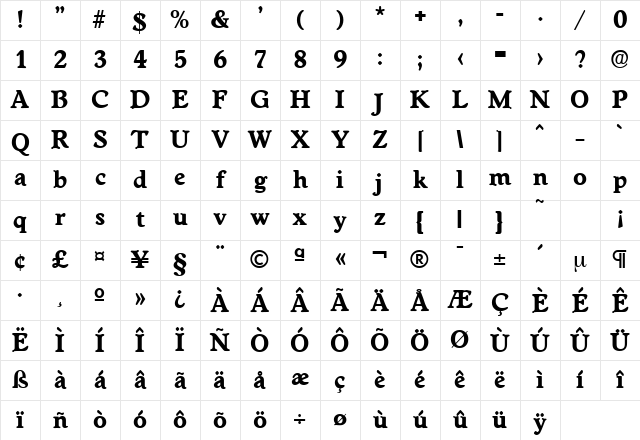
Worcester-Serial-ExtraBold is a composed and adaptable typeface that performs quietly and consistently across a wide range of design contexts. Its bold stroke weight gives it real presence on the page.